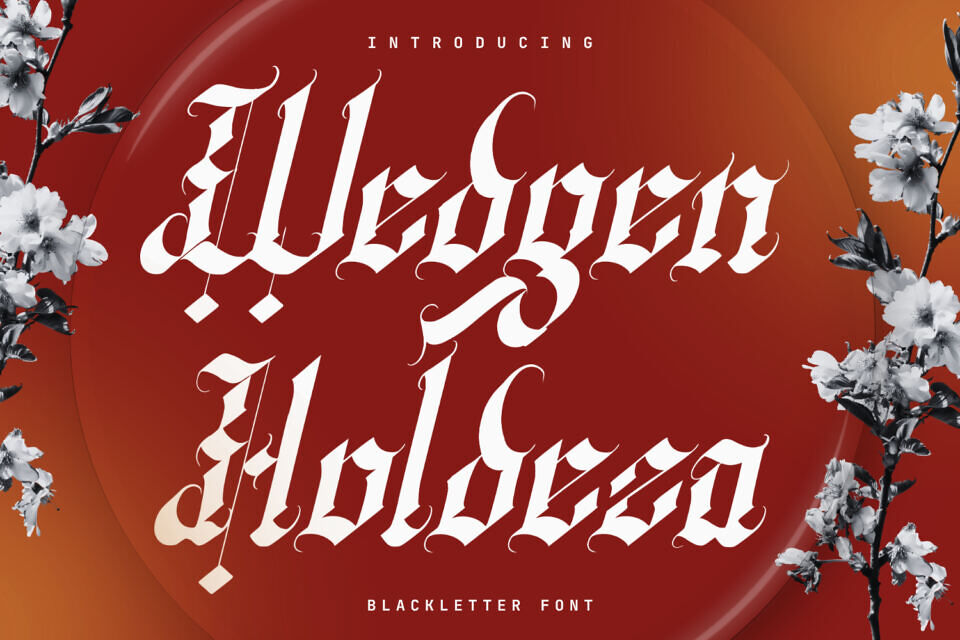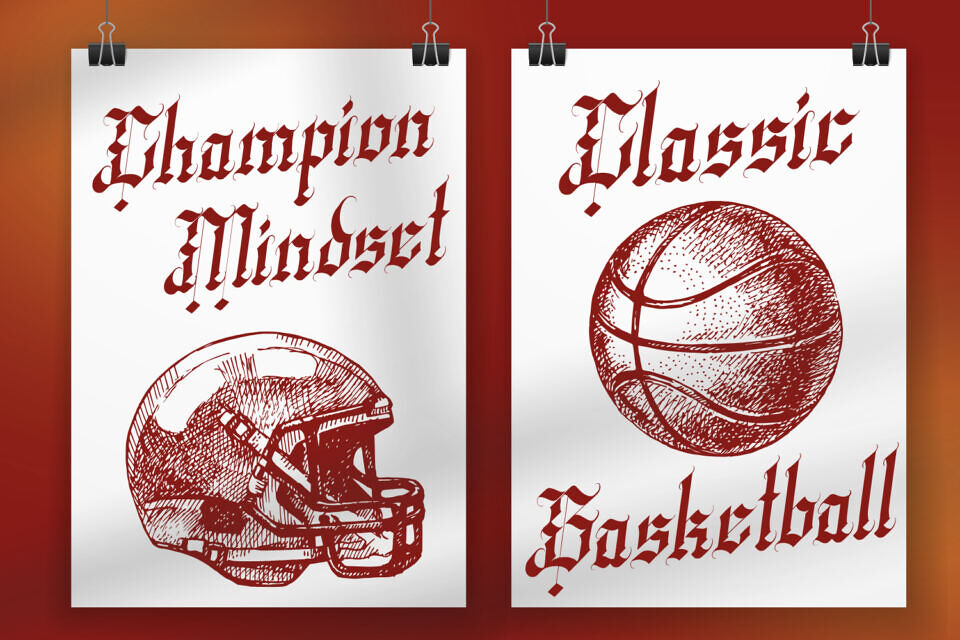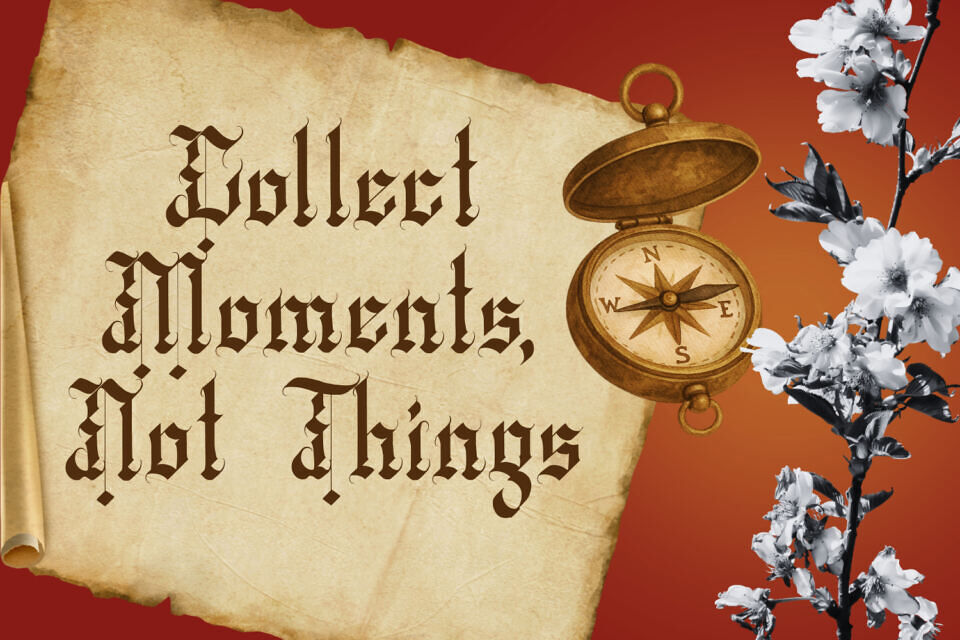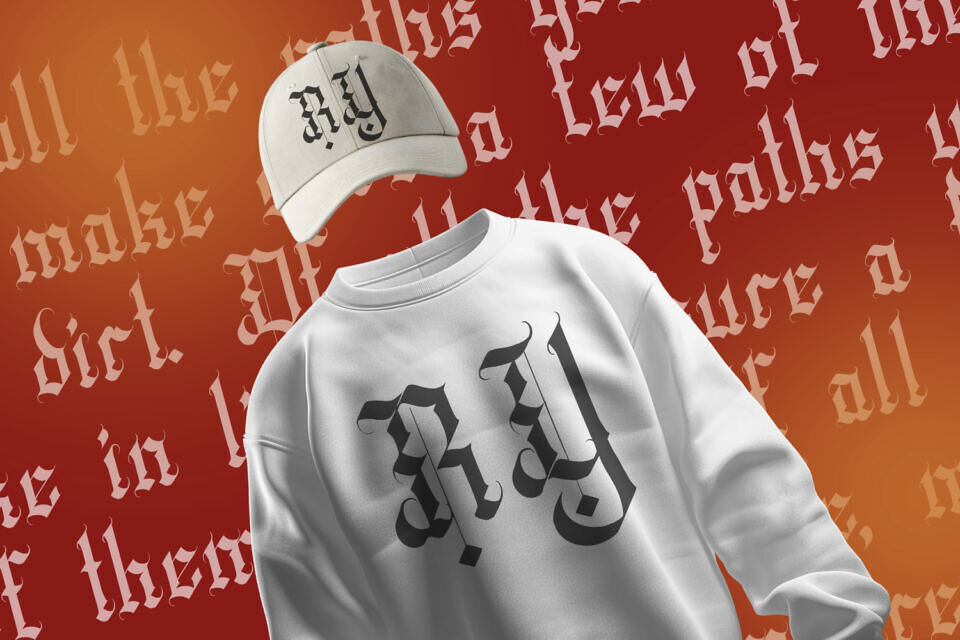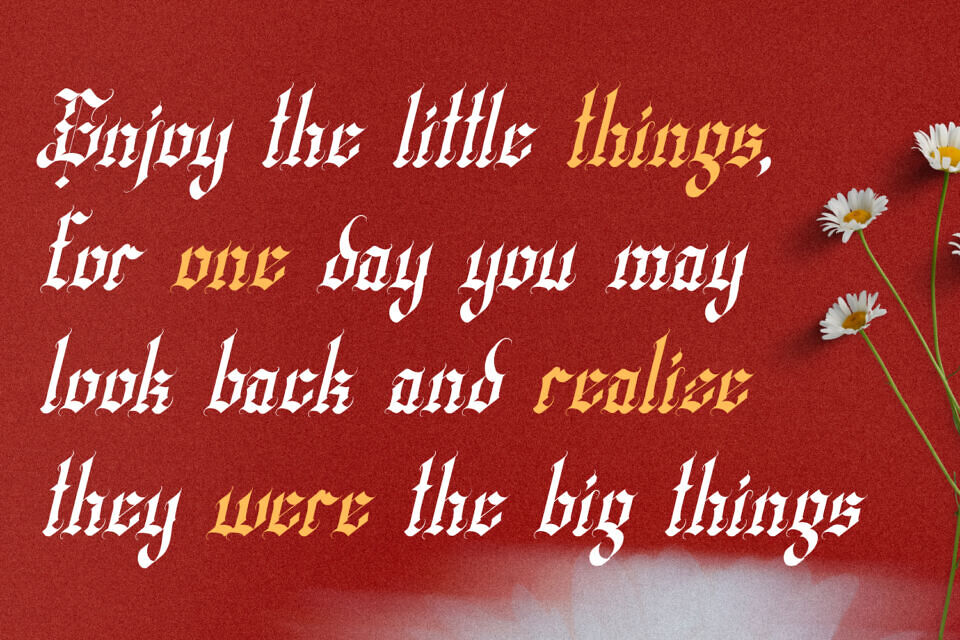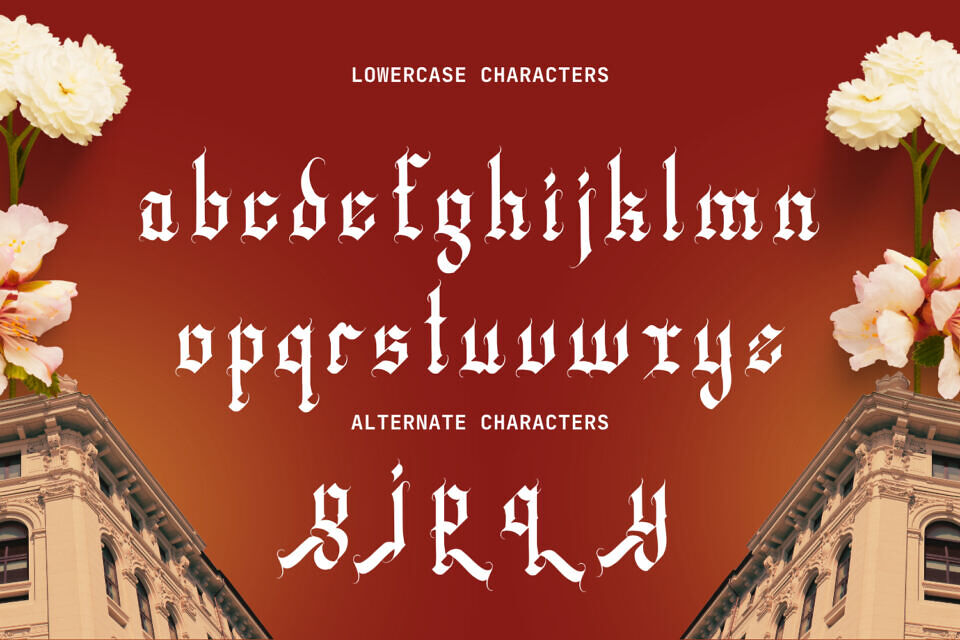
Elevate your design projects with Wedgen Holdeza, a classic and striking blackletter font. Designed to bring a strong, bold, and vintage aesthetic to your creative work, this typeface bridges the gap between traditional gothic calligraphy and modern street style.